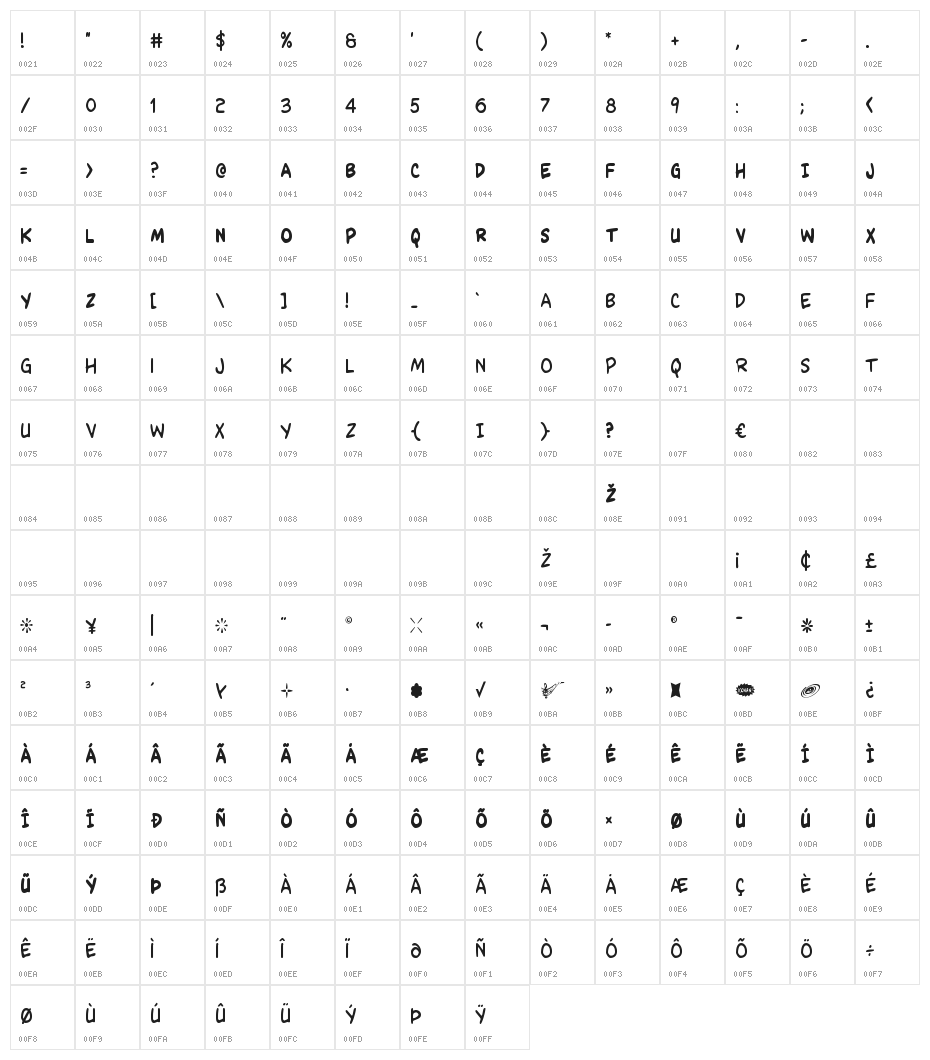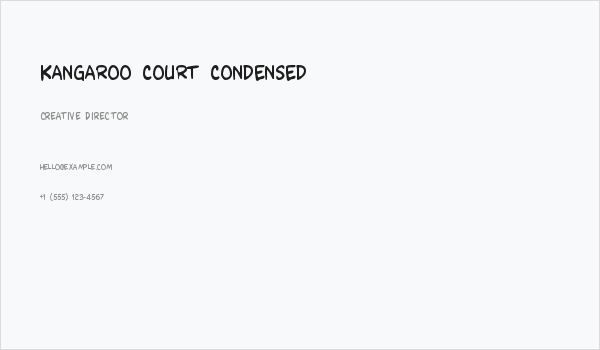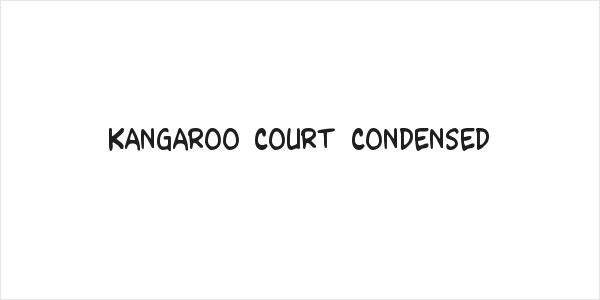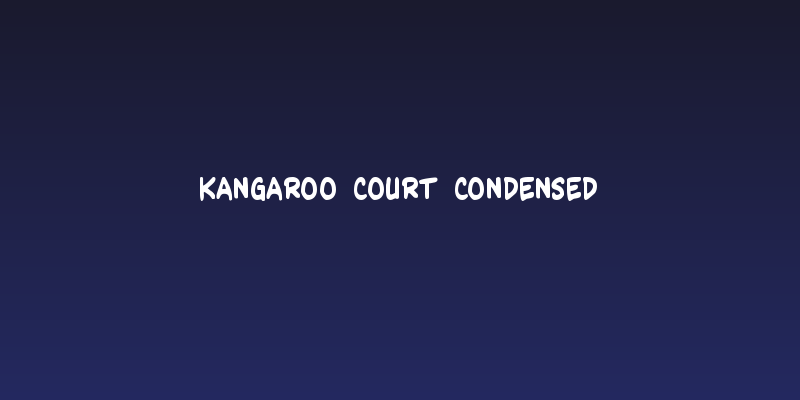
Kangaroo Court Condensed Font
Kangaroo Court Condensed Description
This playful and bold font features a handwritten style with rounded edges and a slightly irregular baseline, giving it a casual and friendly appearance. The characters are condensed, enhancing its compact and efficient use of space. The uppercase and lowercase letters maintain a consistent style, with a uniform stroke width that adds to its readability. The numbers and special characters are designed to match the overall aesthetic, making it versatile for various applications. Its unique charm makes it suitable for projects that require a personal touch or an informal vibe.